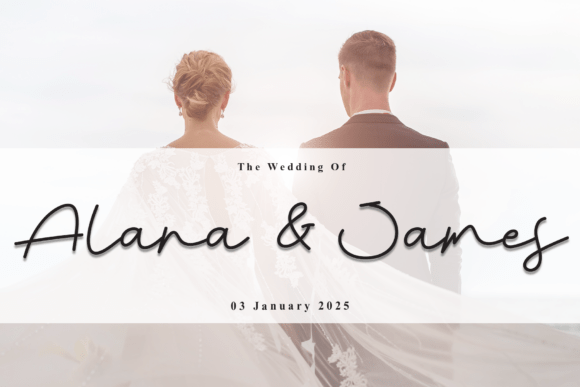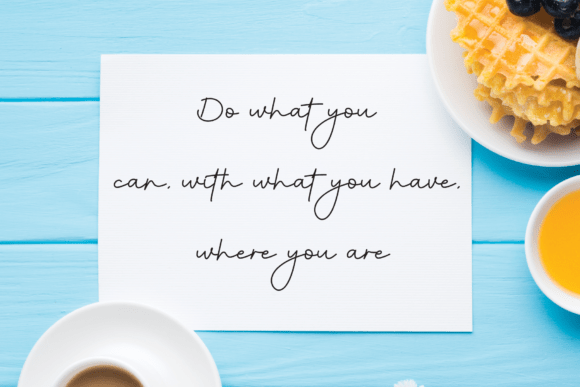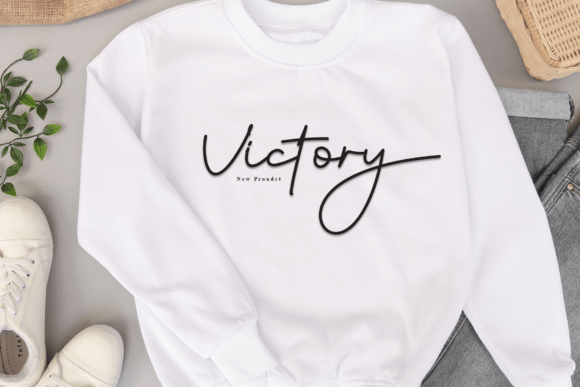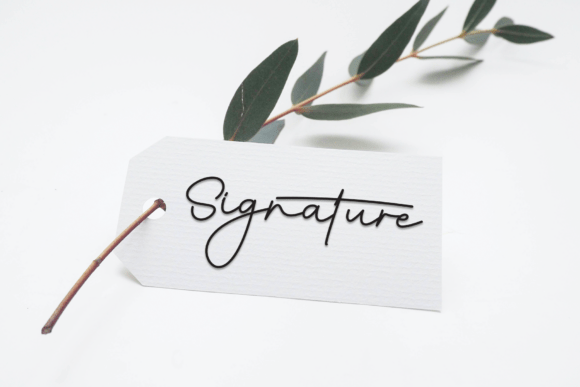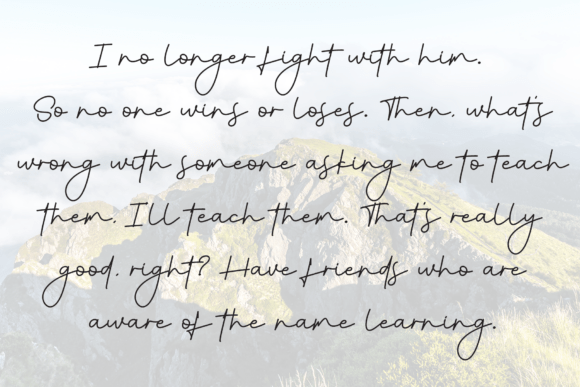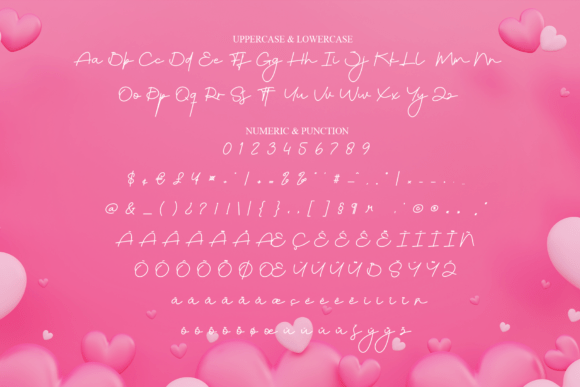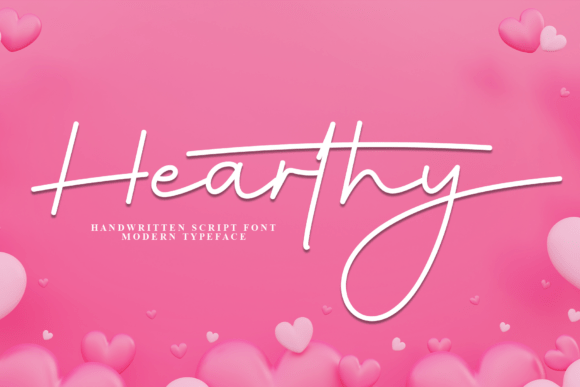
The Elegance of Hearthy Font: Elevate Your Designs with a Touch of Handwritten Charm
In the world of typography, few fonts manage to capture the essence of elegance and charm as effortlessly as the Hearthy Font. This beautiful script font is a masterclass in sophistication, boasting smooth curves and elegant strokes that make it the perfect addition to any design project. Whether you’re a designer looking to add a personal touch to a client’s branding or a crafter seeking to create unique invitations and greeting cards, Hearthy Font is an exceptional choice.
A Font that Exudes Romance and Sophistication
Hearthy Font is more than just a collection of letters; it’s an expression of style and emotion. Its graceful, flowing lines are reminiscent of handwritten script, bringing a sense of warmth and personality to any design. This font is particularly well-suited for projects where you want to convey a sense of romance, chicness, or style. From wedding invitations and logos to branding materials, greeting cards, and social media posts, Hearthy Font delivers effortless beauty and sophistication.
One of the standout features of Hearthy Font is its versatility. Its elegant appearance makes it suitable for a wide range of design projects, including:
- Wedding Invitations: Add a touch of romance and elegance to your wedding invitations, save-the-date cards, and other wedding-related materials.
- Logos and Branding: Elevate your brand with a sophisticated logo or wordmark that exudes style and sophistication.
- Greeting Cards: Create beautiful, one-of-a-kind greeting cards for special occasions like birthdays, anniversaries, and holidays.
- Social Media Posts: Add a touch of elegance to your social media posts, making them stand out in a crowded feed.
Why Choose Hearthy Font?
With so many fonts available, why choose Hearthy Font for your design projects? Here are just a few reasons:
- Unique and Eye-Catching: Hearthy Font’s elegant script style sets it apart from more traditional fonts, making your designs instantly noticeable.
- Easy to Read: Despite its ornate appearance, Hearthy Font is surprisingly easy to read, making it perfect for both headings and body text.
- Highly Versatile: Whether you’re designing for print or digital media, Hearthy Font adapts seamlessly to any format.
- Time-Saving: With Hearthy Font, you can achieve professional-looking results in a fraction of the time it would take to create custom lettering.
Tips for Using Hearthy Font Effectively
To get the most out of Hearthy Font, consider the following tips:
- Pair with Simple Fonts: For maximum impact, pair Hearthy Font with simpler fonts to create a striking contrast.
- Play with Size: Vary the size of your text to create visual hierarchy and draw attention to key elements.
In conclusion, Hearthy Font is a beautiful, elegant script font that can elevate any design project. Its smooth curves, flowing lines, and charming appearance make it perfect for adding a personal, handwritten touch to wedding invitations, logos, branding, greeting cards, and social media posts. With its versatility, readability, and timeless style, Hearthy Font is an excellent choice for designers and crafters looking to create sophisticated, eye-catching designs.